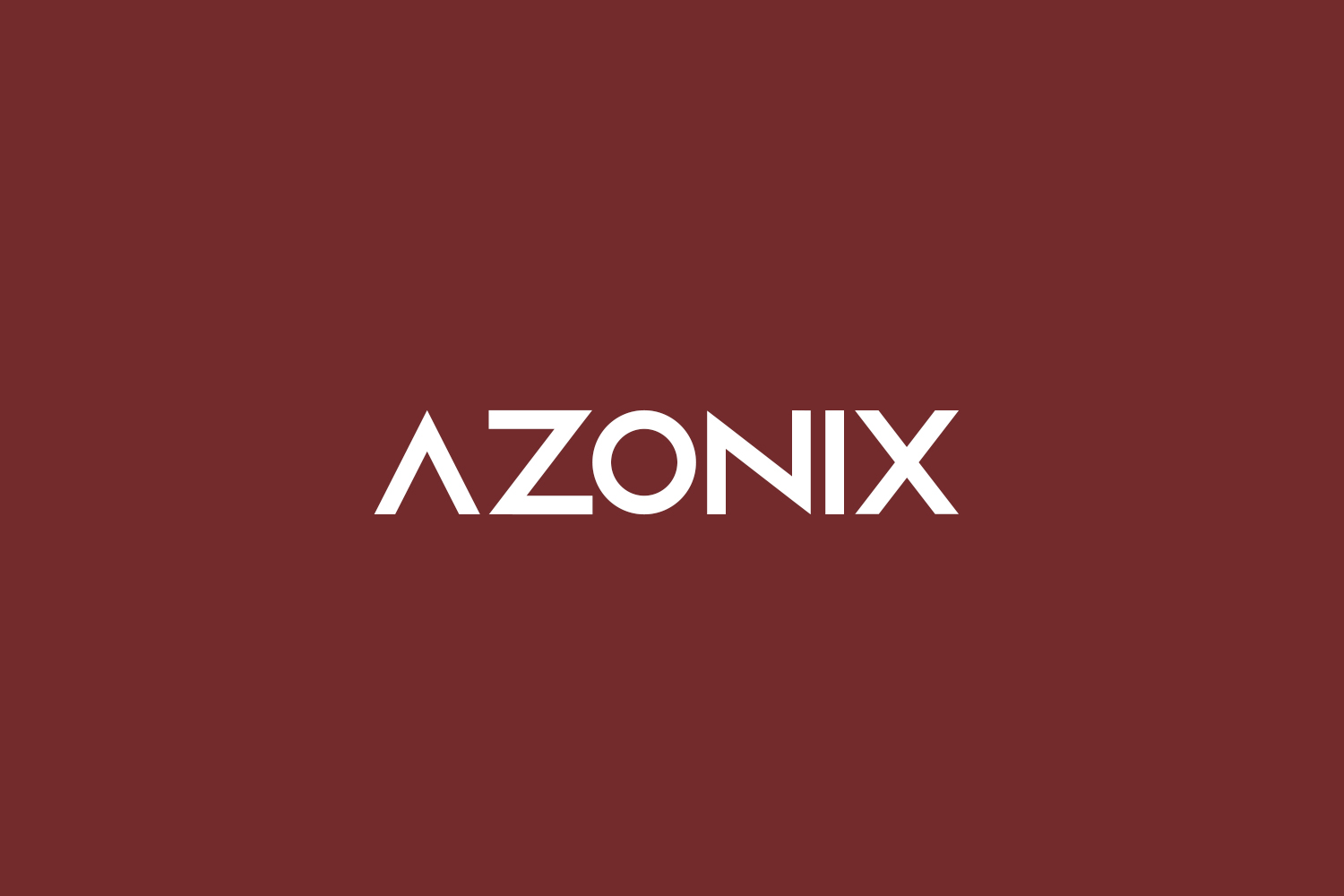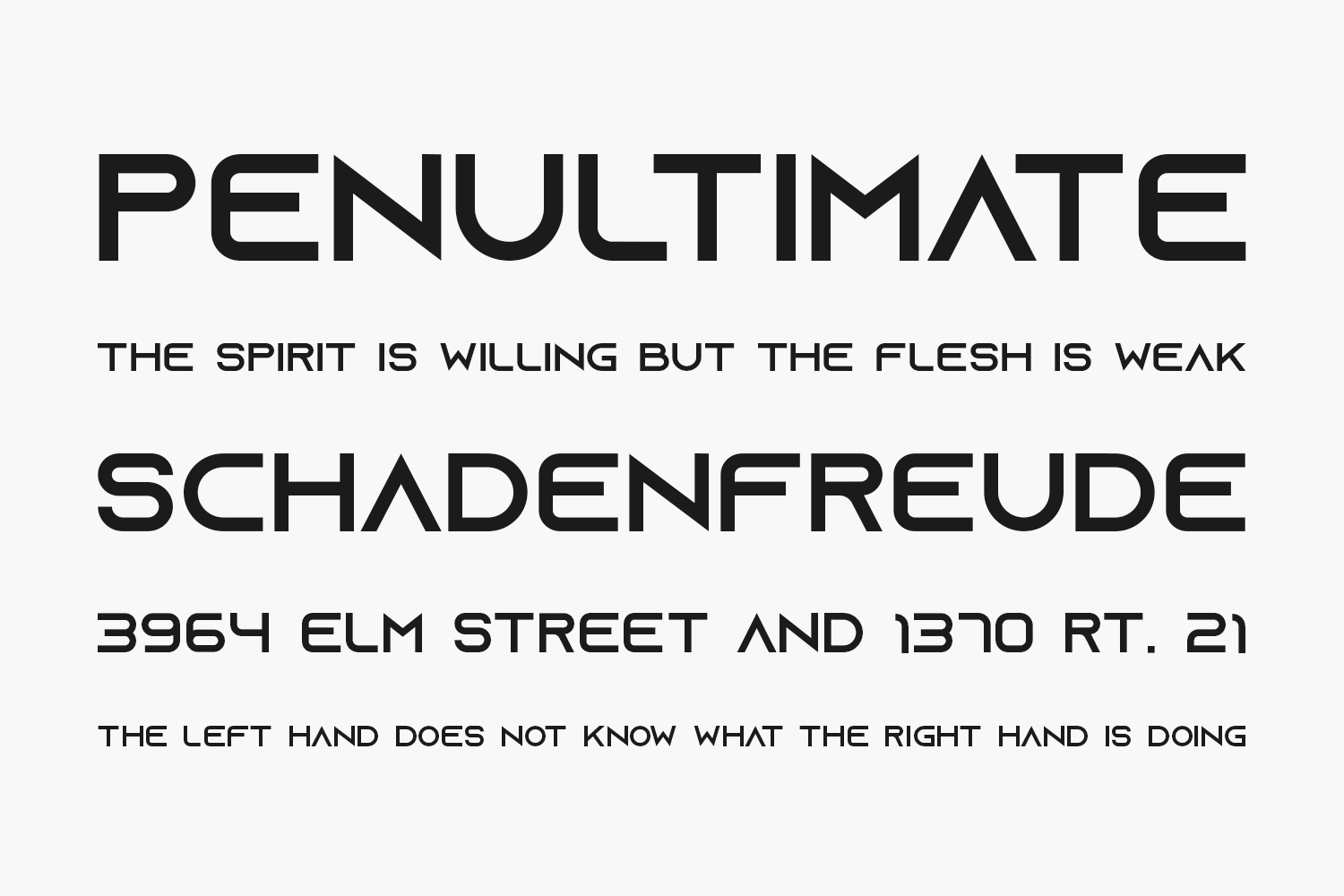
Azonix is a modern sans-serif typeface. This typeface consists of bold geometric upper case letters, numbers and punctuation (symbols).
Designed by Mixo